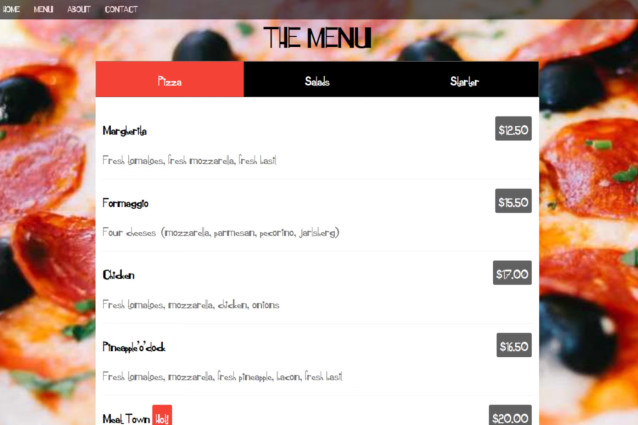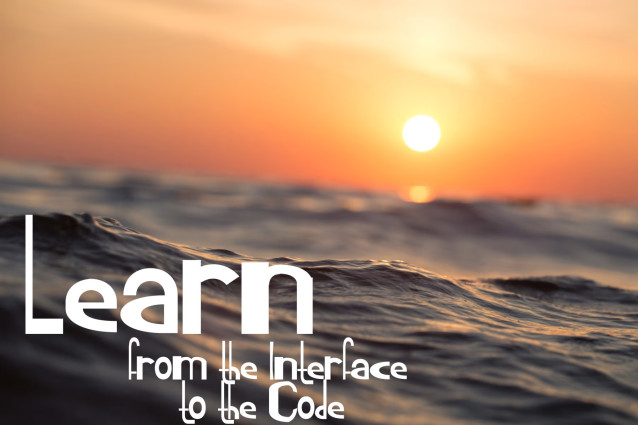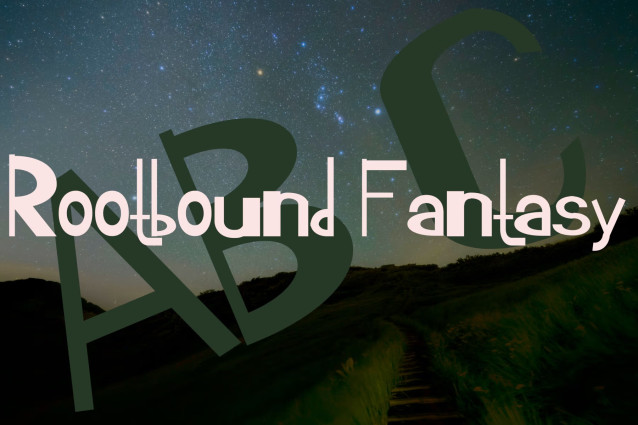
Rootbound Fantasy Font – a decorative serif typeface with pronounced contrast and an eclectic, even esoteric atmosphere. It is a cartoonish font that zaps in a magazine.